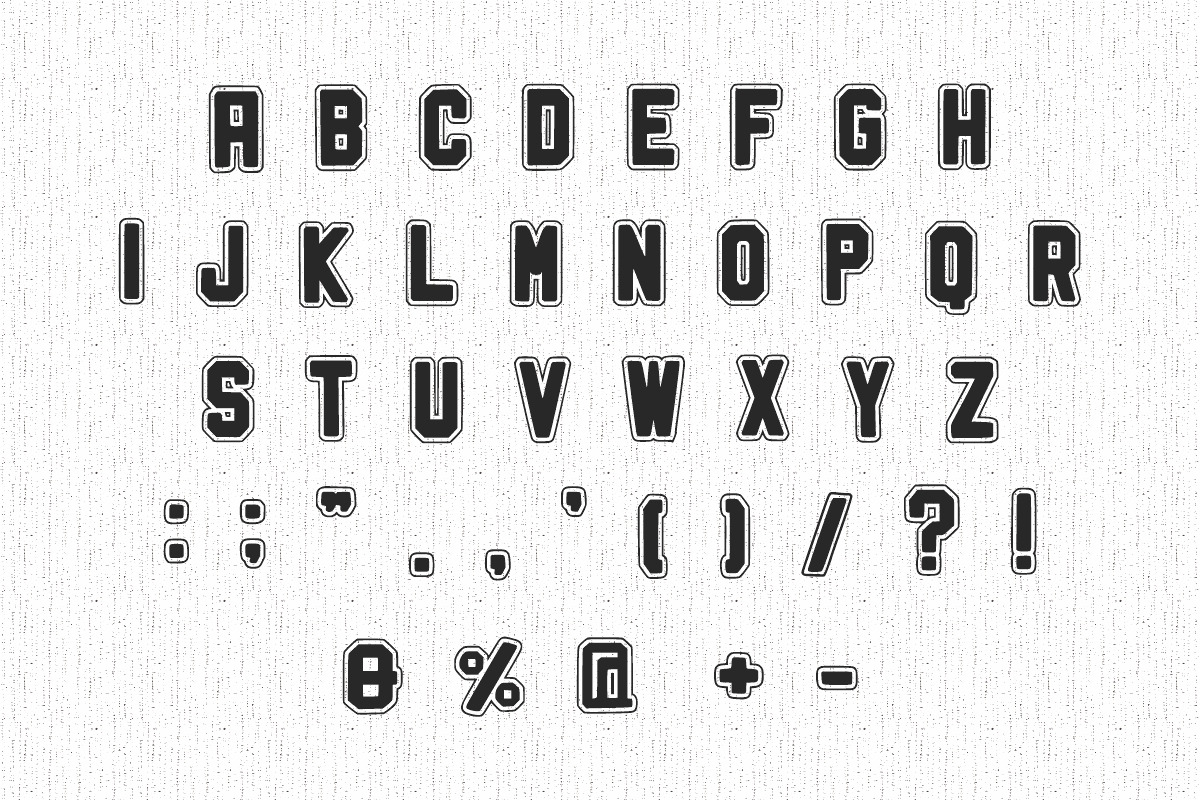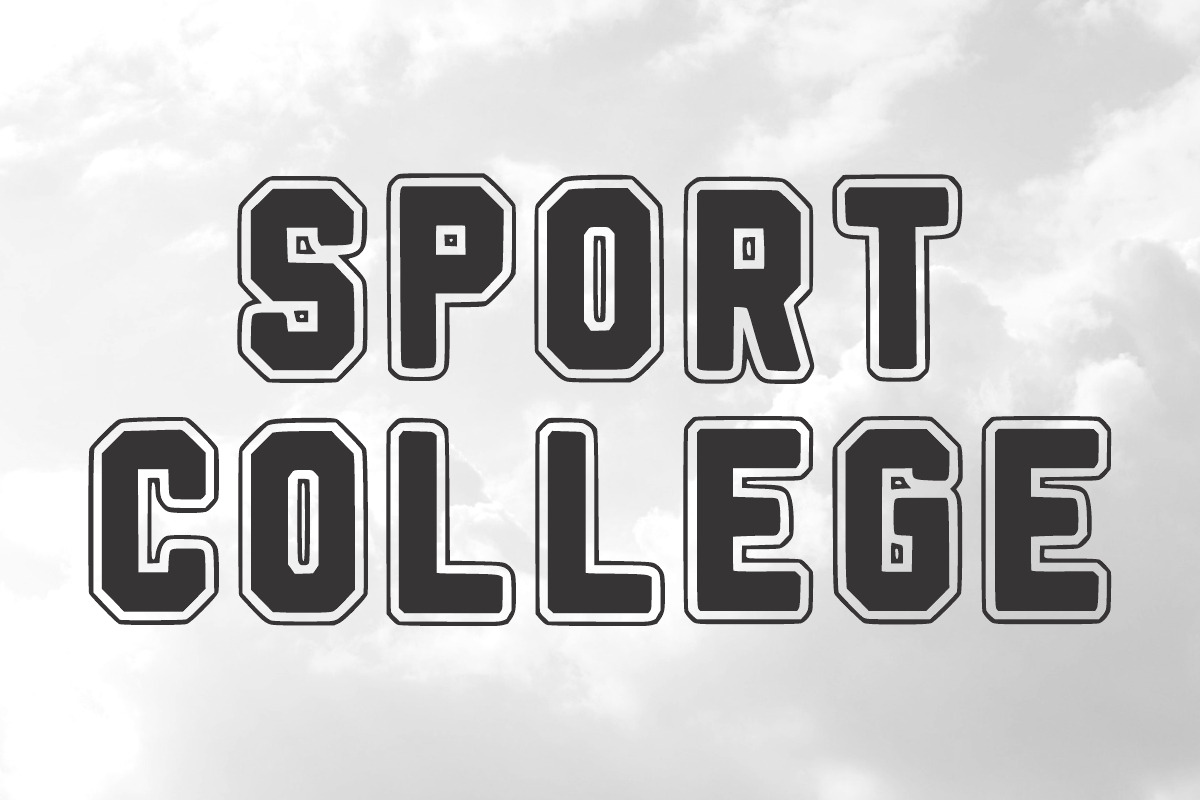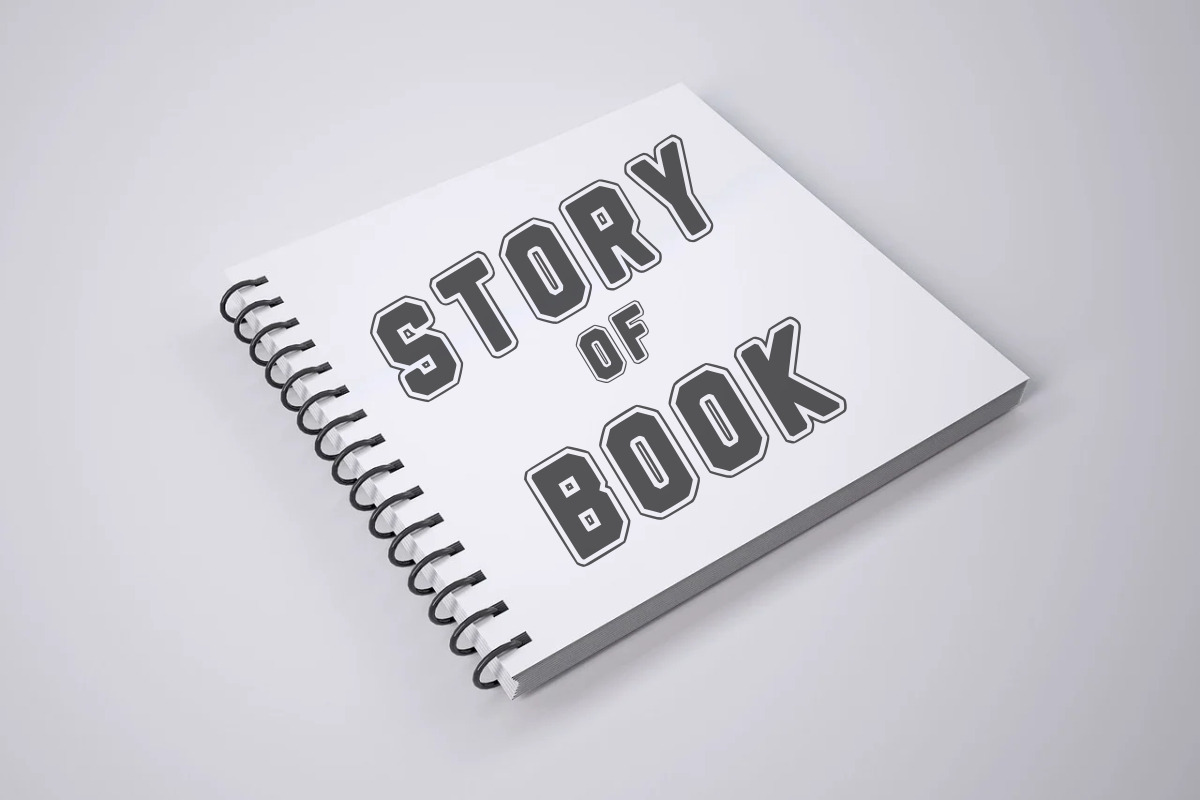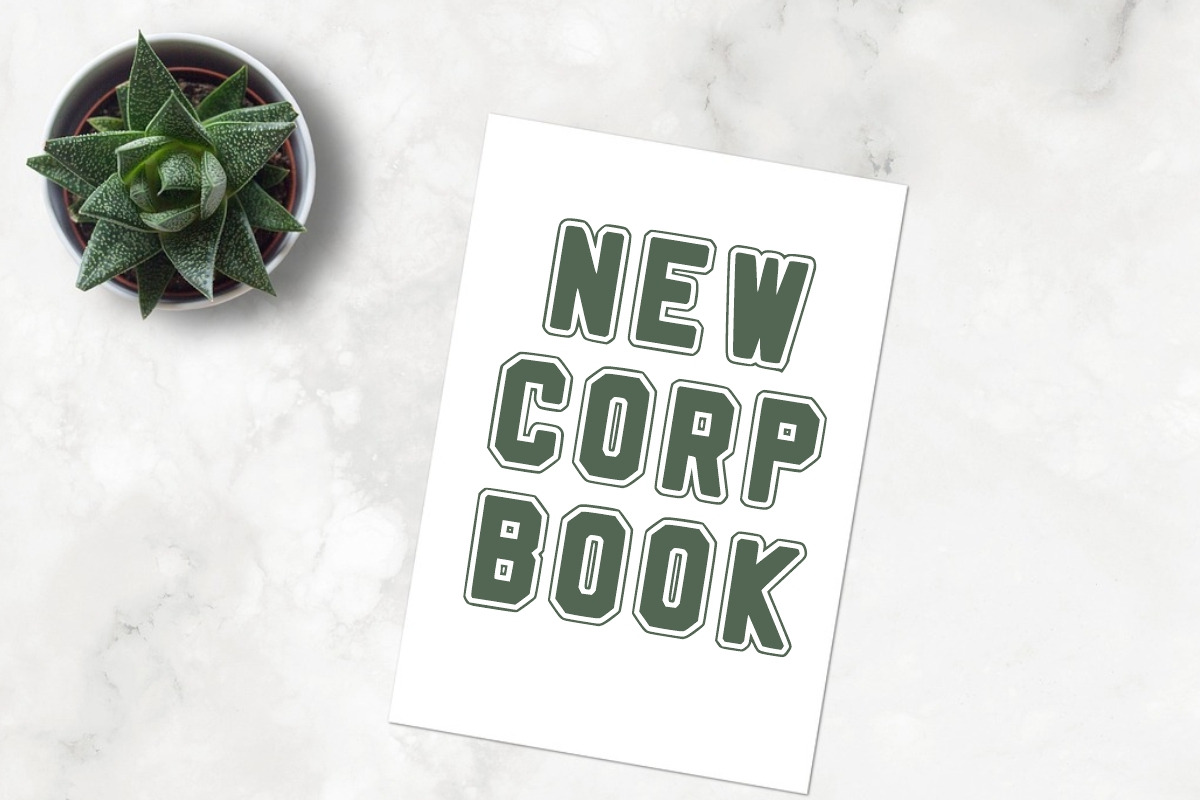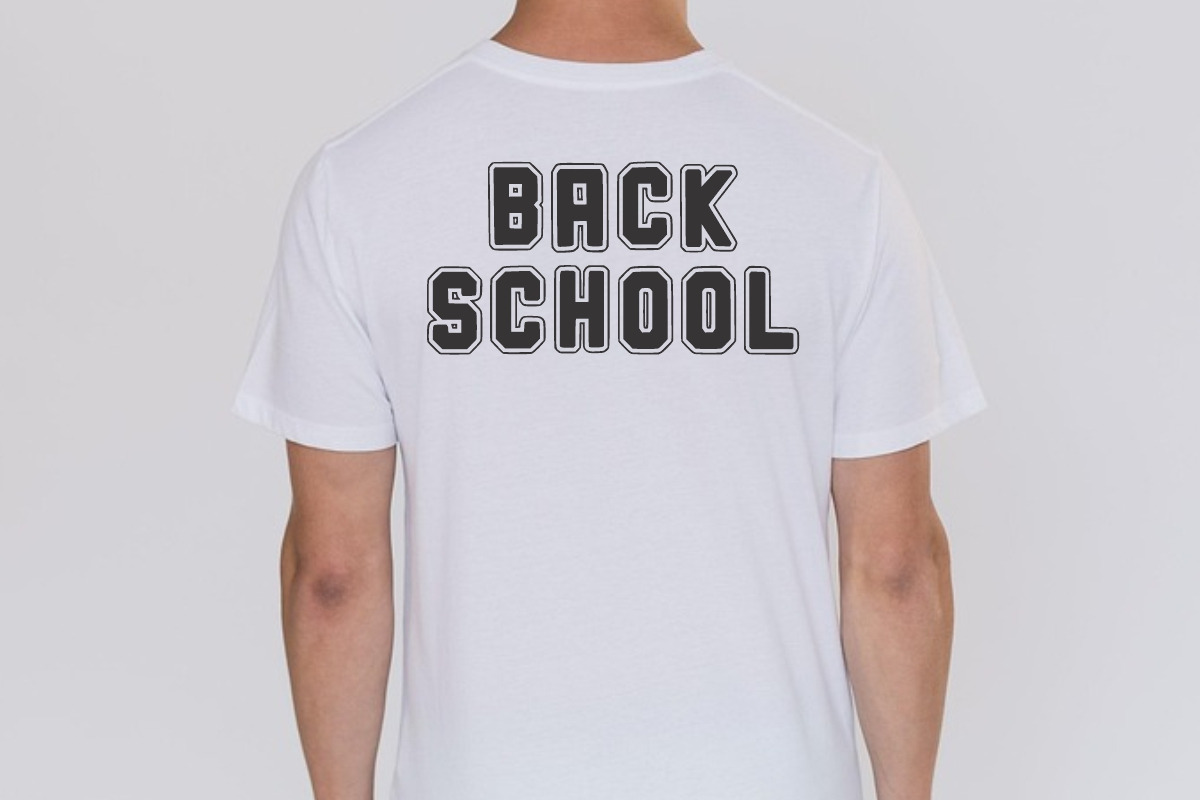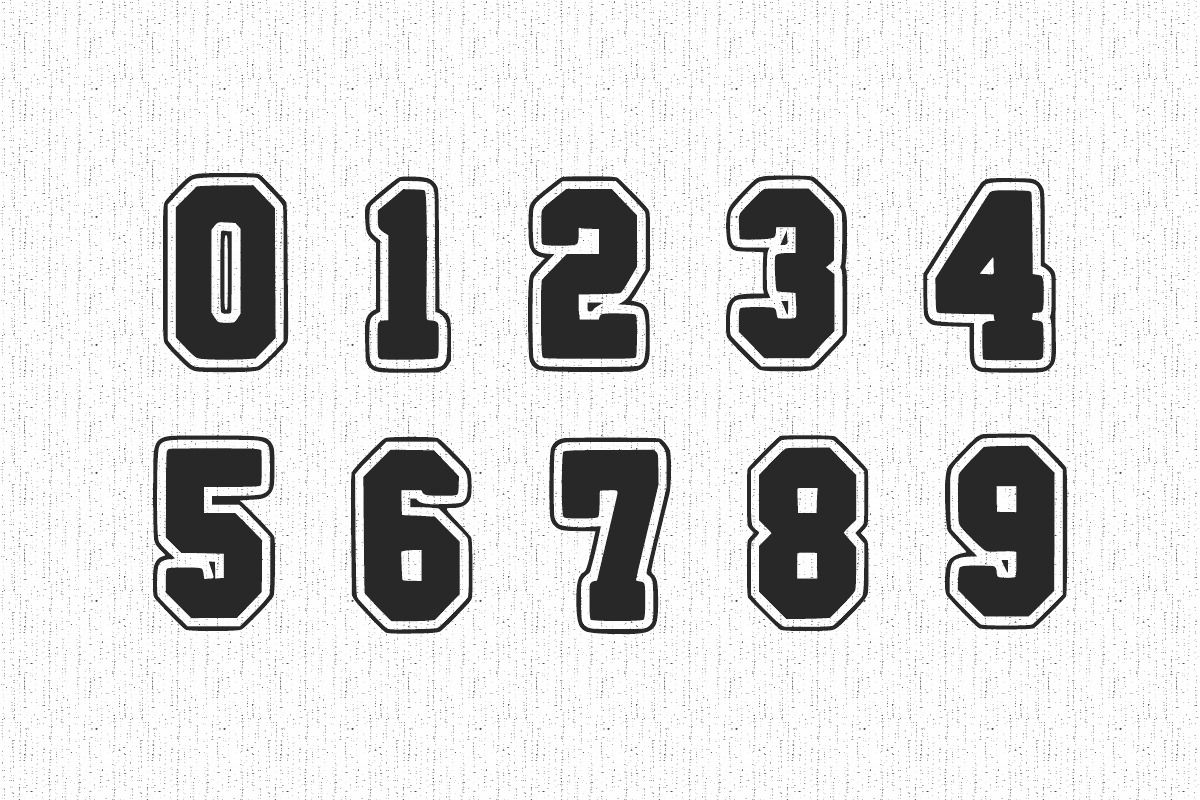
Varsity Future
Varsity Future is a college outline and bold display font. It is suitable for any winter and holiday branding project, product packaging, invitation, quote, t-shirt, label, poster, text effect, label, and logo that you wish to develop.